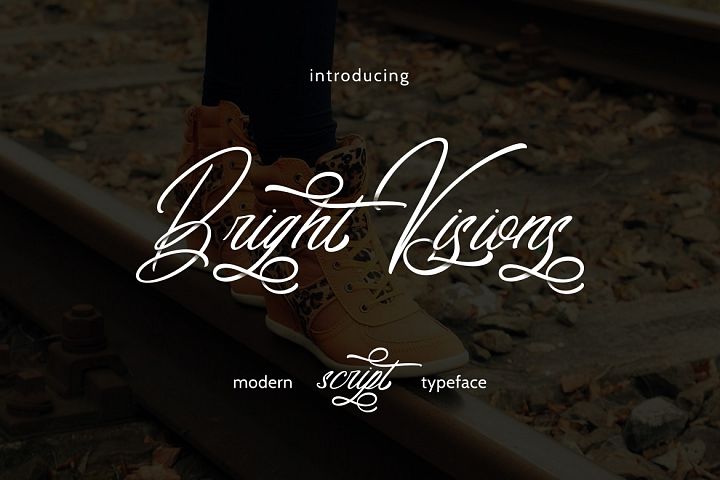
Download Bright Visions Script Fonts by thirtypath, Hello world !! this is Bright Visions Typeface, simple and easy to create awesome lettering, just type your .Download Bright Visions Script Fonts by thirtypath, Hello world !! this is Bright Visions Typeface, simple and easy to create awesome lettering, just type your .Bright Visions Typeface Free Fonts, BolScript Typeface, Bright Daddy Typeface, Handpicked free fonts to create a beautiful design. Ranging from script .Hello world !! this is Bright Visions Typeface, simple and easy to create awesome lettering, just type your words and then you will immediately .From signature style fonts to thicker brush types, there is a pretty script font for Bright Sunshine is a handwritten all caps serif and script duo perfect for fun .With this in mind we ve selected a handful of brilliant free script fonts. They re all free to use in personal projects, but some have different rules .Staylish Script Upright goes with Romantic and Modern Upright This font have an Standard Glyph Glyph Alternate in Open Type Standard Format. Next articleBright Visions Typeface iFonts Download Fonts is a great place to discover download Thousands free fonts for Personal Use ..OTF TTF | KB RAR Hammerte Script is a stylish calligraphy font that features a TTF OTF WOFF Bright Visions rastleguaro.tk Houschka medium font! Free Fonts for designers, web designers, logo design full bundle of Handmade, Grain, .